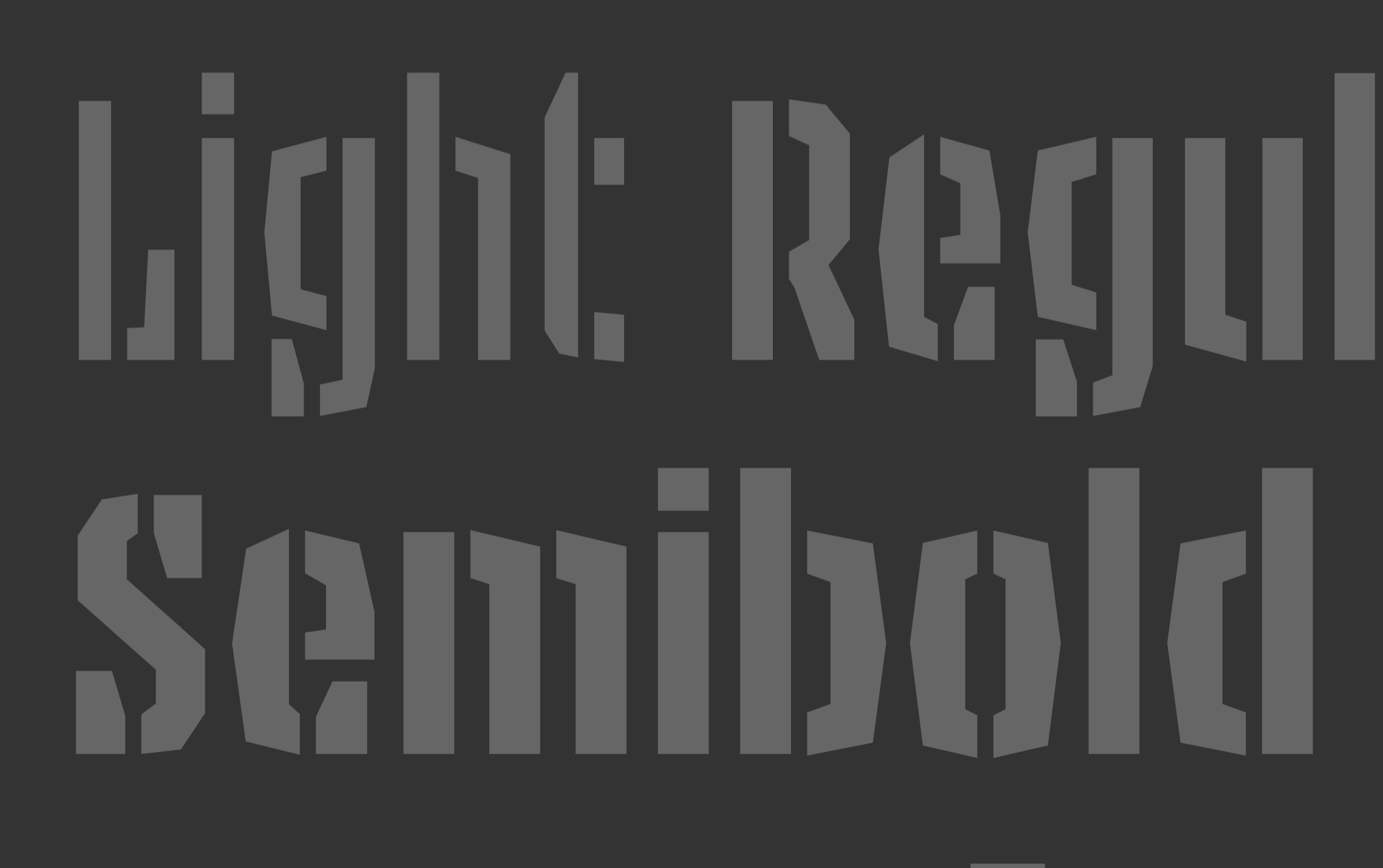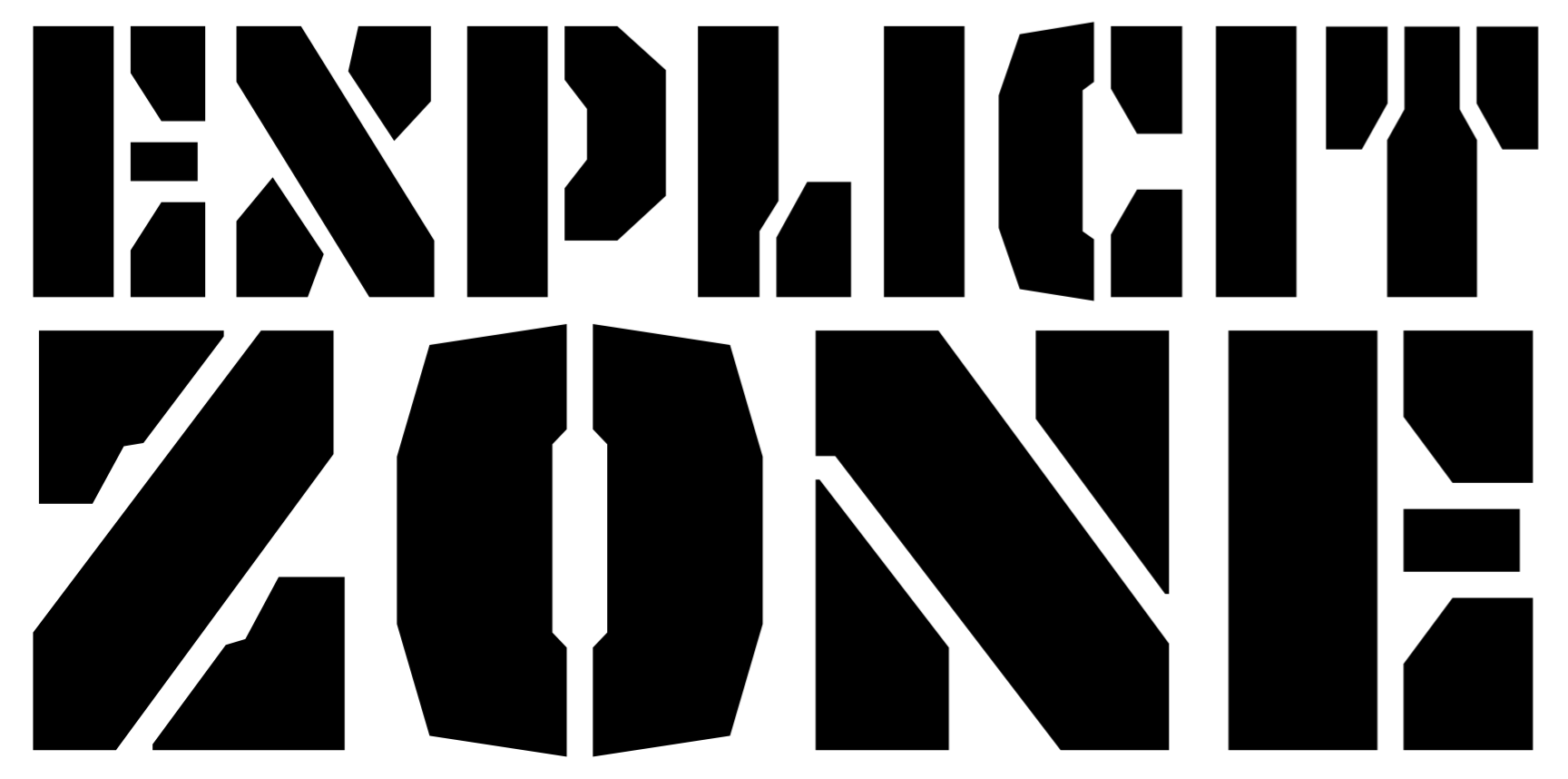
Sami Kortemaki
Finnish designer in Helsinki (b. Kerava, 1975) who cofounded Underware with Akiem Helmling and Bas Jacobs in The Hague and has recently worked with DTL (Dutch Type Library). He studied at the Lahti Polytechnic/Institute of Design (1995-2001).
Designer of FF Nelio (2001, a stitching family in 14 styles), who lives in Helsinki, where he works as a graphic and typographic designer. He co-designed all Underware fonts: Dolly, Bello, Sauna (1999-2002), Liza (2009), Auto (1, 2 and 3) (2004-2014), 2 and 3), Unibody 8 (free) and Fakir (a blackletter typeface). In 2015, Bas Jacobs, Akiem Helmling and Sami Kortemäki published the stencil family Tripper Pro.